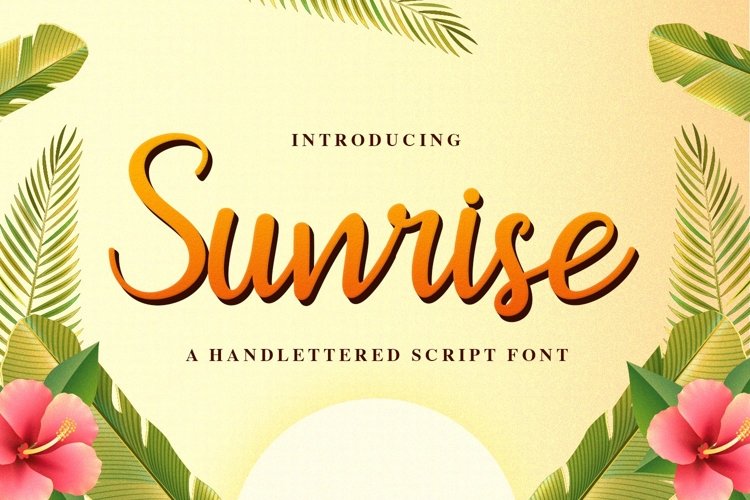
Sunrise is a fun, modern and stylish calligraphy inspired script font. Sunrise script comes with 522+ glyphs. Shirlly Script is the perfect font for your design and craft projects.